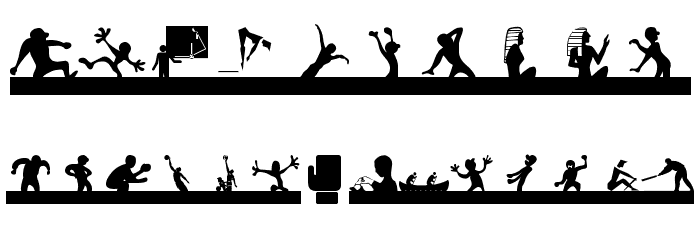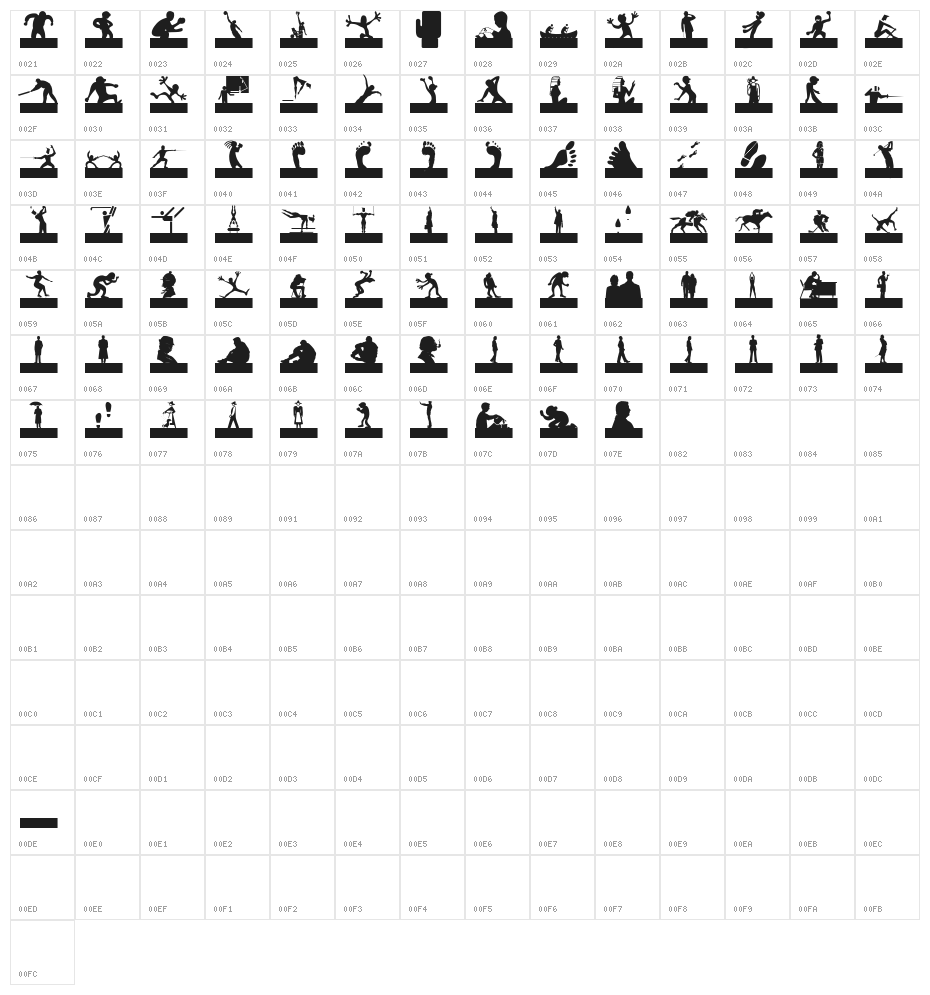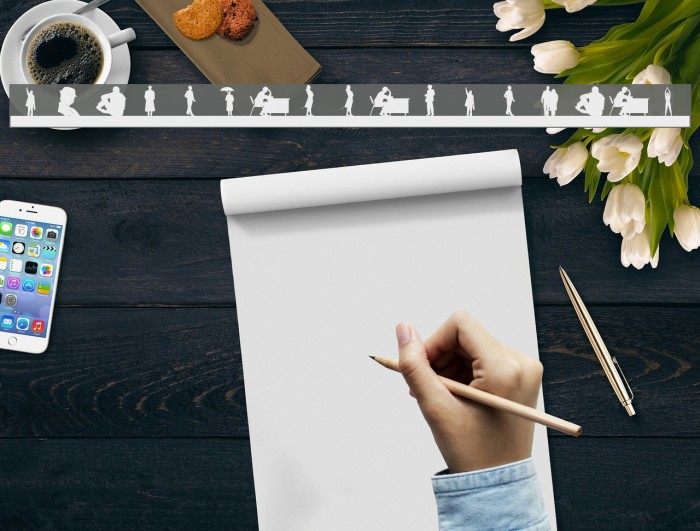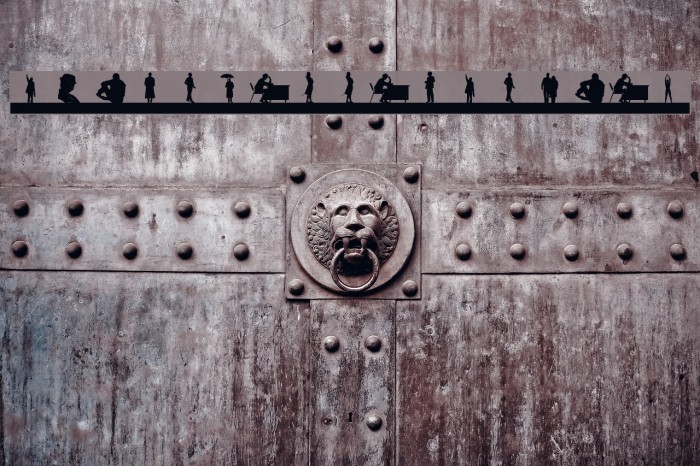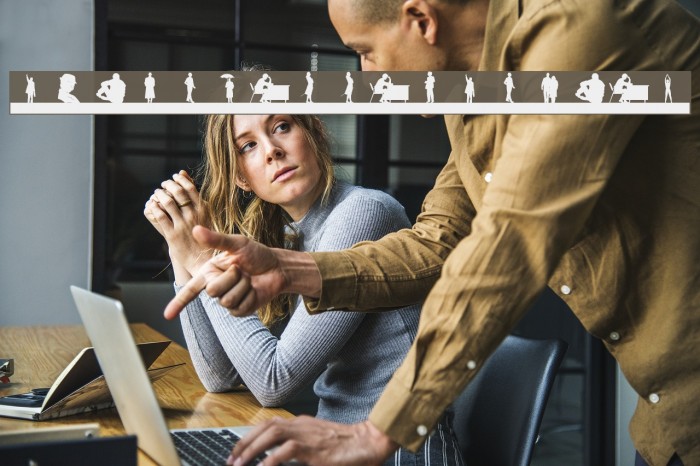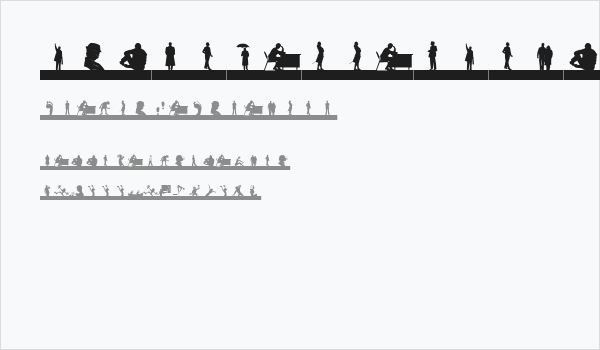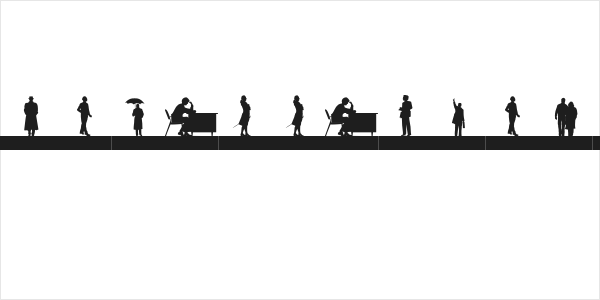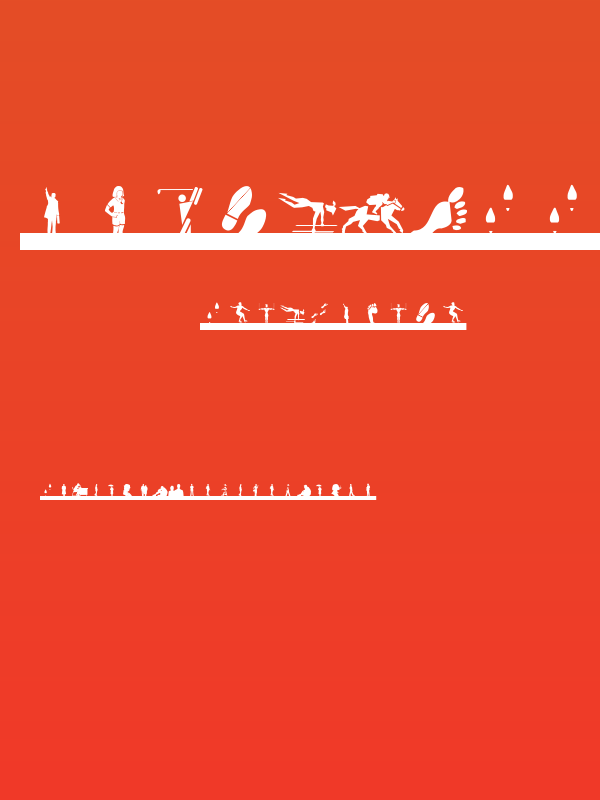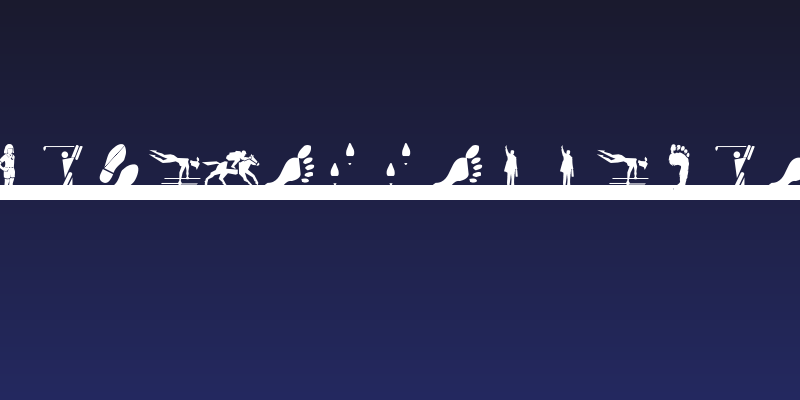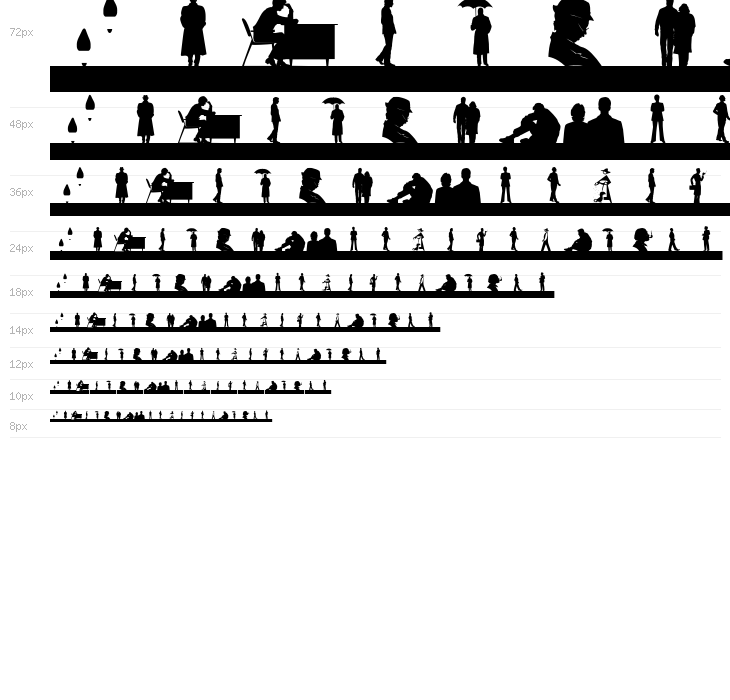
A playful, decorative font composed of human and animal silhouettes performing various actions, with each character represented by a unique scene or pose. The glyphs are highly illustrative, using solid black fills and strong horizontal baselines, making each letter or symbol visually distinct and expressive.
Overall StyleDecorative, Playful, Whimsical
Use CaseLogos, Headlines, Posters, Themed graphics
Proposed ProjectsChildrenÒ€ℒs books, event posters, creative branding, educational materials, playful invitations.